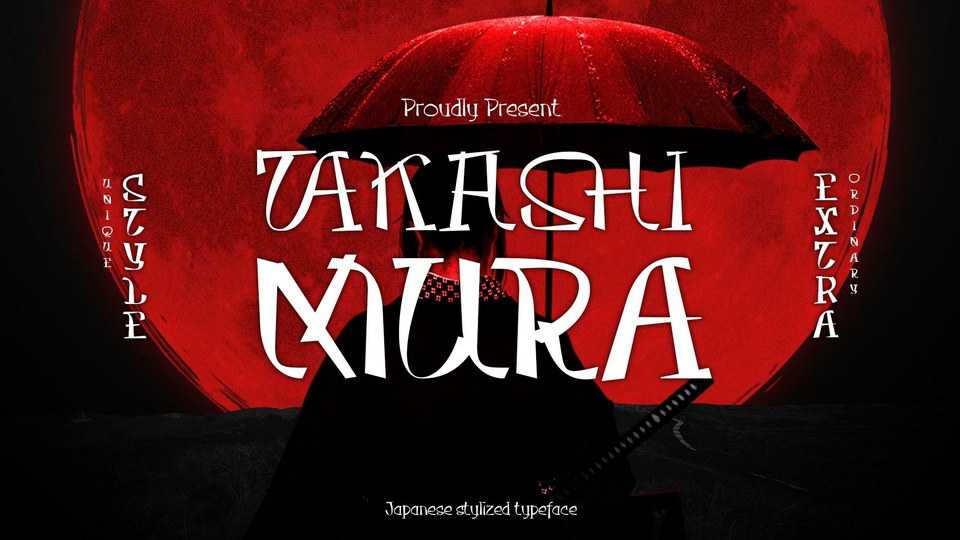
Download Takasimura font, a display typeface inspired by unique and cool Japanese calligraphy. Takasimura font was created for a design solution with a Japanese concept but internationally readable.